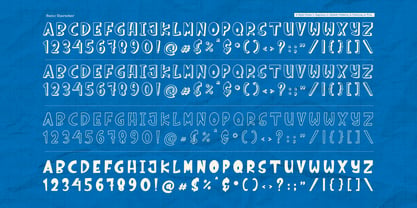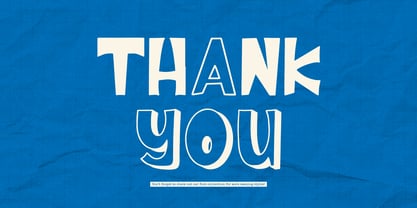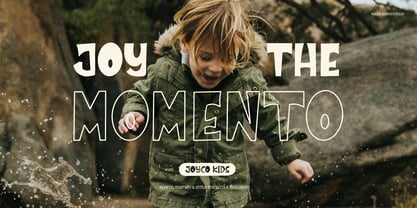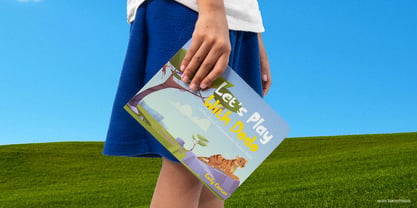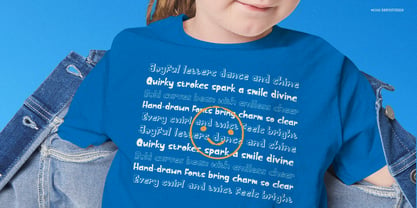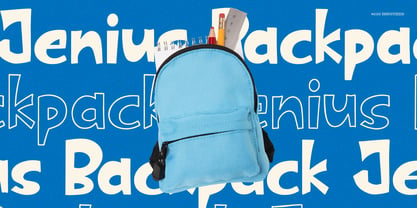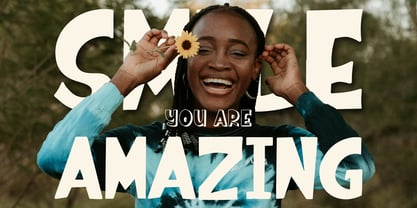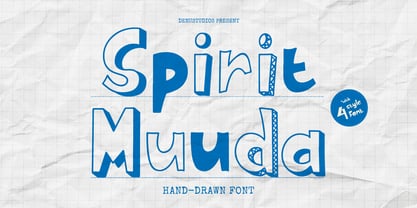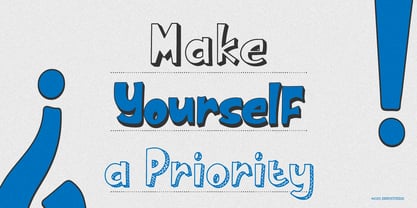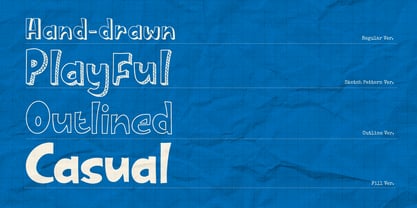
Spirit Muuda Sketch
The Spirit Muuda Sketch Font Family was designed by Dede Nugraha and published by Denustudio. Spirit Muuda Sketch contains 1 styles. More about this family
Spirit Muuda | Hand Drawn Font, from Denustudios, suitable for any projects such as: logos, branding projects, homeware designs, product packaging, mugs, quotes, posters, shopping bags, t-shirts, book covers, name card, invitation cards, greeting cards, label, photography, watermark, special events, and all your other lovely projects that need Hand Drawn Font a taste.
• Regular and Italic
• Alternate and Ligature